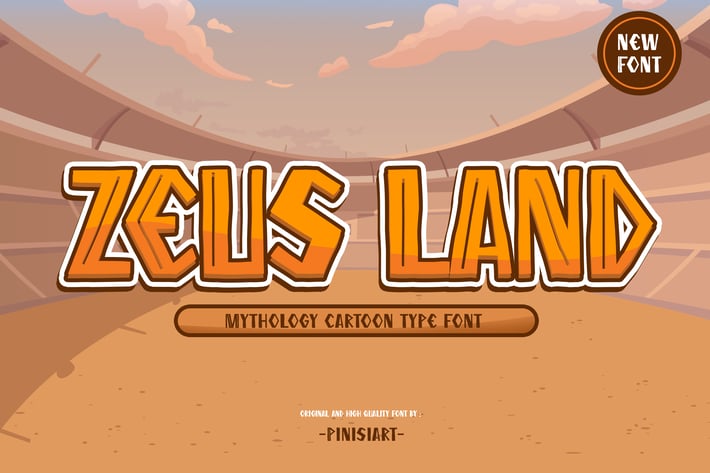
Zeus Land - Gaming font
Zeus Land - Gaming Font
Taking the ancient greek era, Zeus Land will bring the epicness of the god and mythology they had in those time.
The gladiators, the battle of praetorians, the castle siege, all of that... will brought to life with this font.